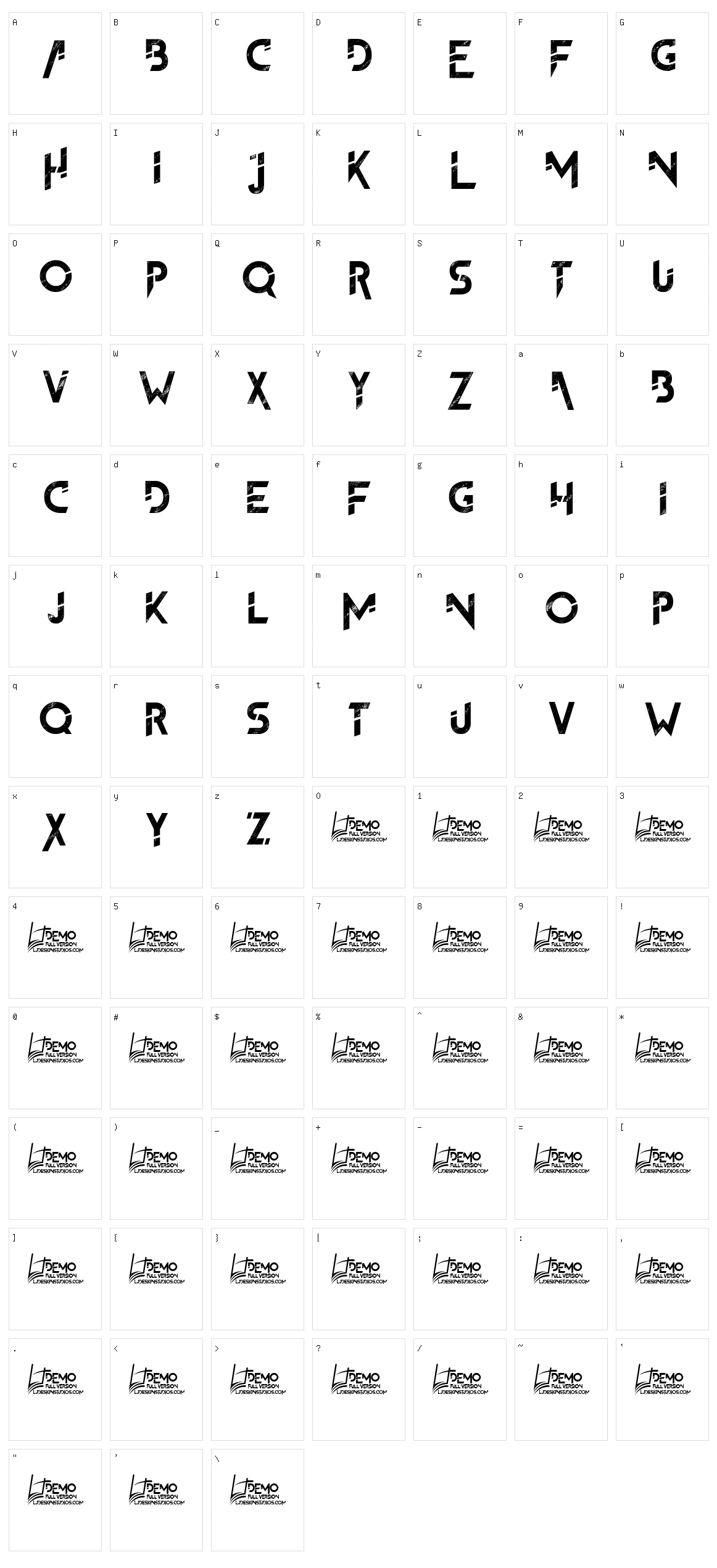
The free font The FrontMan 2 is carefully designed by LJ Design Studios, showcasing a thoughtful balance of creativity and usability and falls under the Eroded font style. When you download the ZIP file, it contains only 3268.41 KB of font files, making it lightweight and quick to download. Please review the license details below to understand permitted usage and distribution rights. If license information is not available, we recommend using this font for personal projects only or contacting the author directly for commercial usage permissions.